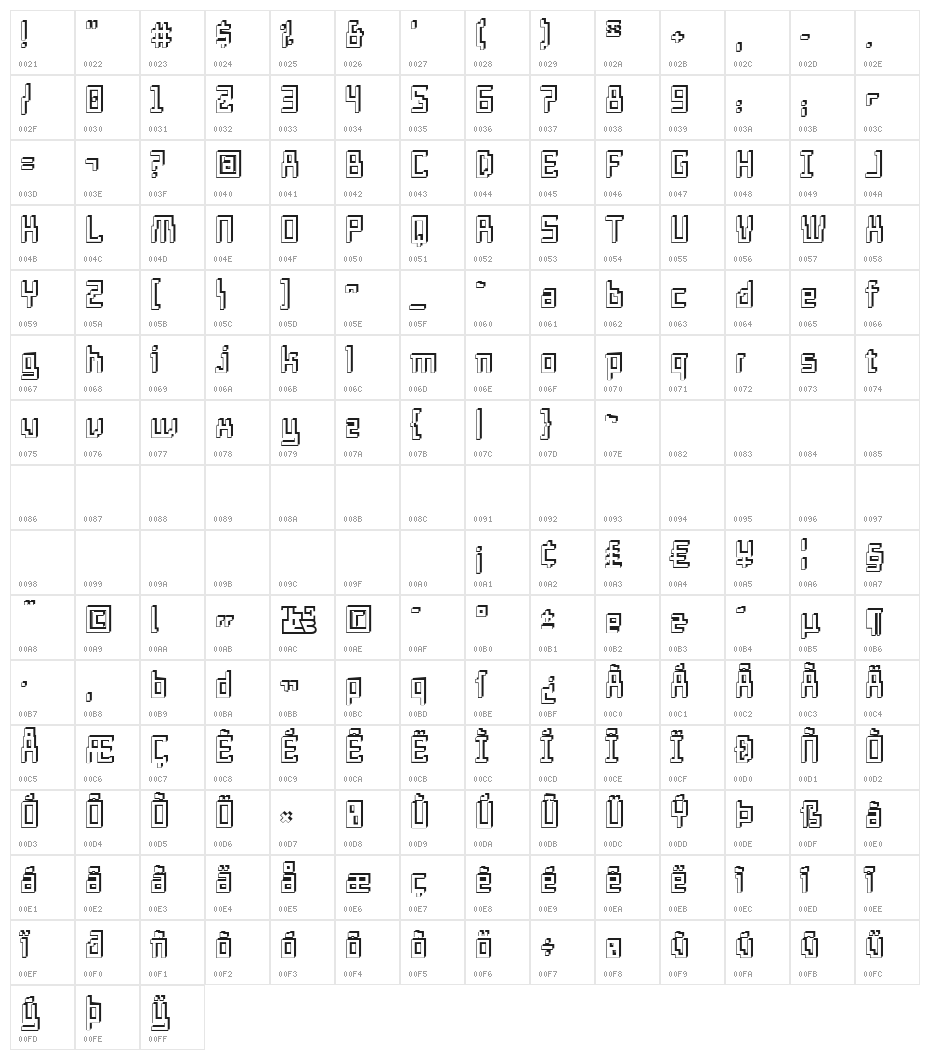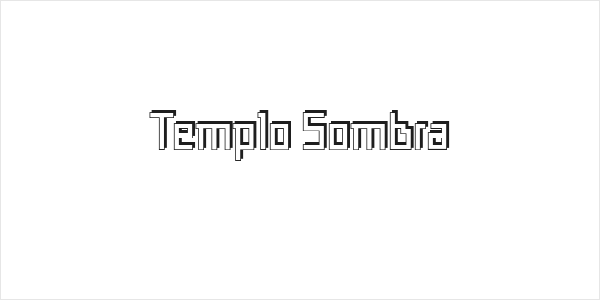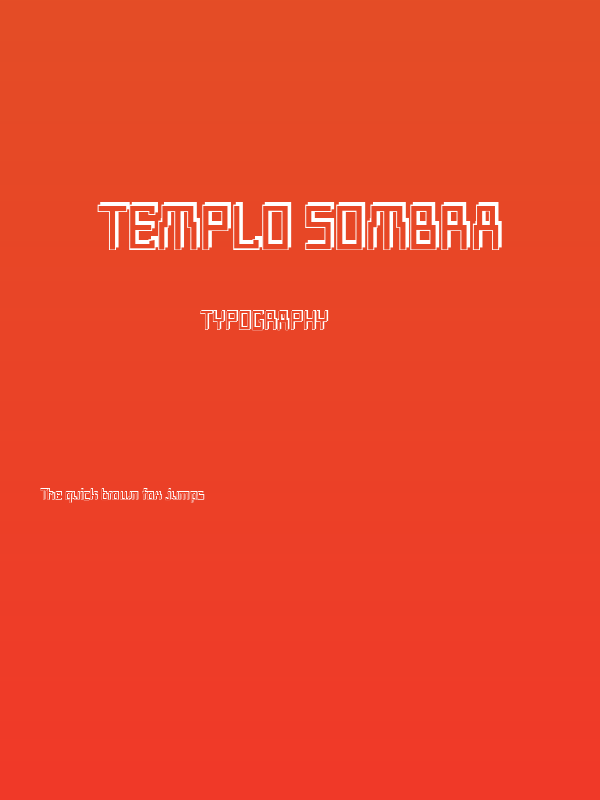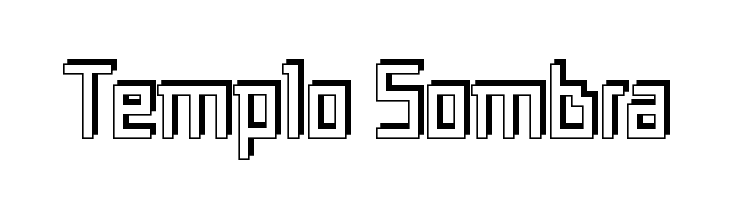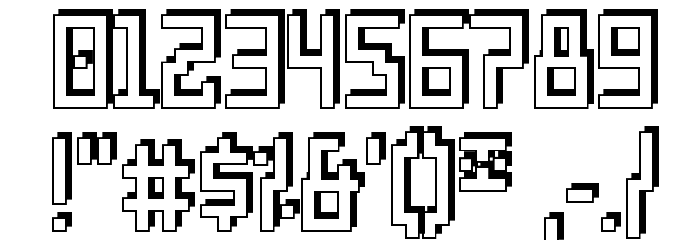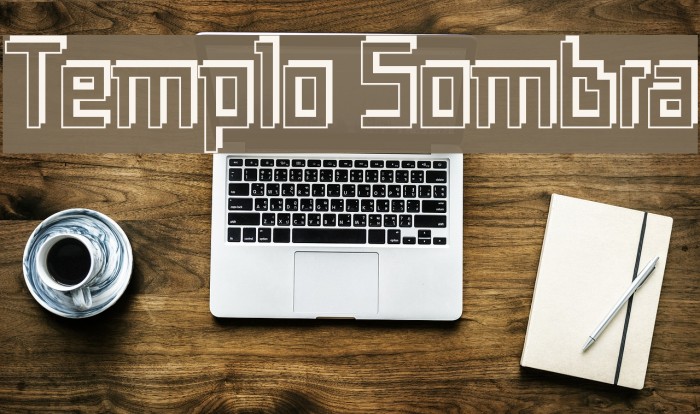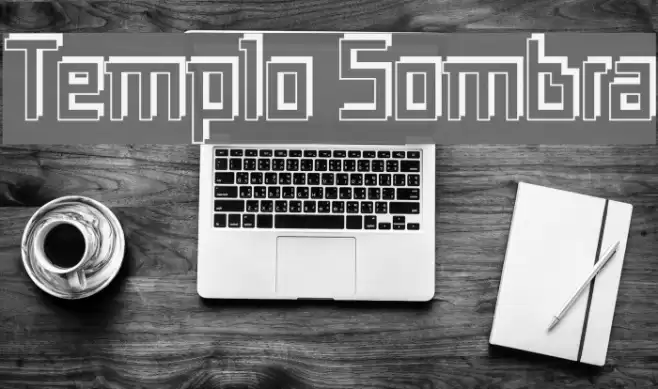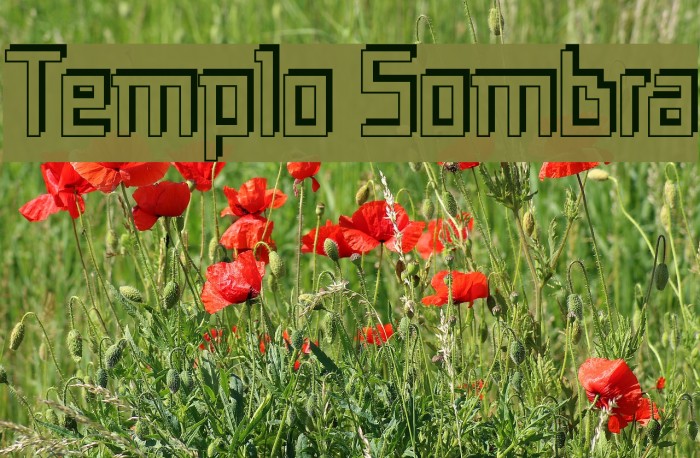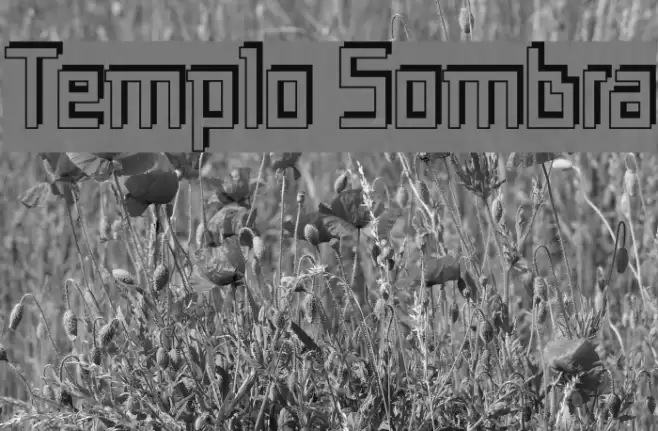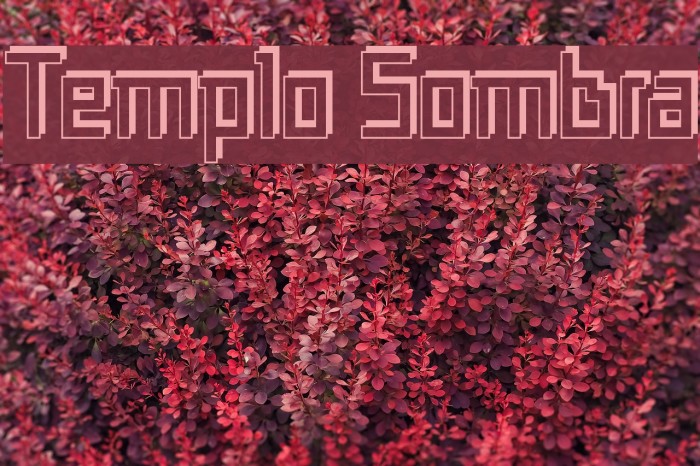
Templo Sombra Font
Templo Sombra Description
This font features a bold, geometric design with a distinct blocky appearance. Each character is outlined with a thick border, creating a shadow effect that adds depth and dimension. The uppercase and lowercase letters maintain a consistent style, emphasizing straight lines and right angles. Numbers and special characters are designed to match the overall aesthetic, making the font cohesive and visually striking. The unique style is reminiscent of retro digital displays, offering a nostalgic yet modern feel.
| Proposed Projects | Ideal for video game graphics, retro-themed posters, and digital art projects. |